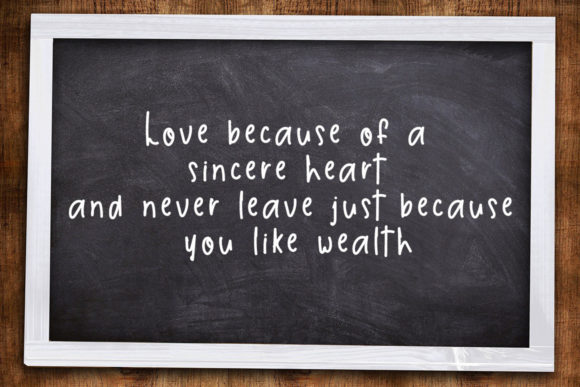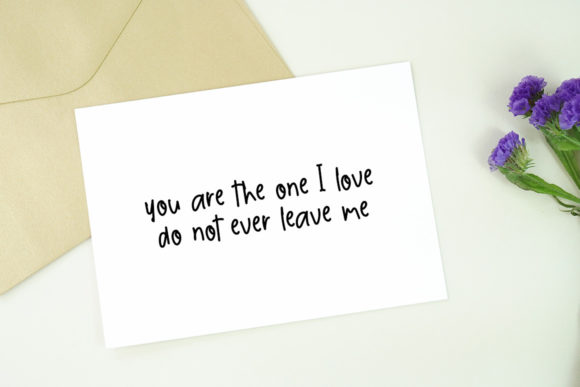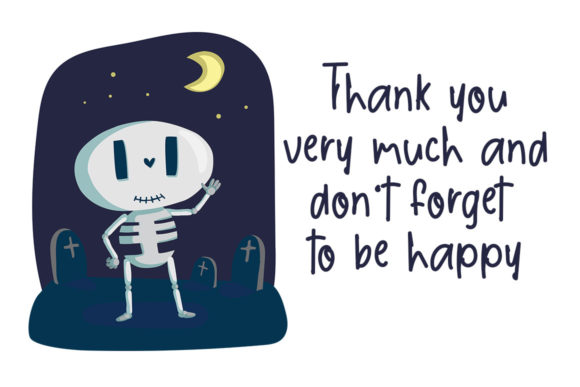
Introduction to My Handwritting Font Font
Fonts play a crucial role in design, and the My Handwritting Font font is a typeface that brings both character and versatility to any project. Whether you’re working on a branding project, a website, or a print design, the My Handwritting Font font offers a unique style that can elevate your work.
My Handwritting is a chic, trendy script font that emanates confidence and versatility.
Its stylish alternates and ligatures make this font the perfect match for any project .
Key Features of My Handwritting Font Font
Why Choose My Handwritting Font Font?
The My Handwritting Font font is more than just a typeface – it’s a design tool that helps you communicate your message with style and clarity. Its unique character set and versatile design make it suitable for a wide range of applications, from elegant invitations to bold headlines.
With its carefully crafted letterforms and balanced proportions, the My Handwritting Font font ensures readability and visual appeal across all mediums.
What makes My Handwritting Font font special?
The My Handwritting Font font stands out with its unique design, exceptional readability, and versatility across various design applications.